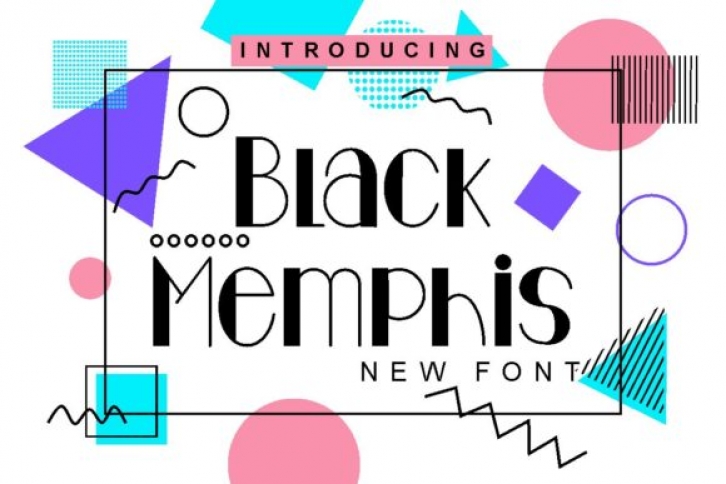
Black Memphis feels equally cool and adaptable. Readable, fresh and casual, this font will match a wide range of design ideas, both formal and informal designs. Use this font for your creations and explore its endless possibilities.